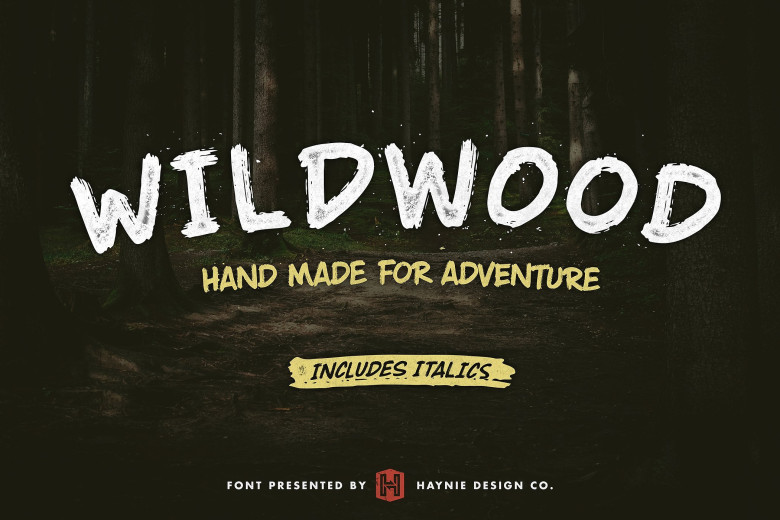
Wildwood Dry Brush Font
Introducing Wildwood Dry Brush Font! Wildwood Dry designed by Haynie Design Co., this is a premium font, are sold on creativemarket, but it was great, it is free today for download. Wildwood is an adventurous and expressive dry brush all-caps display font. Featuring lowercase alternates and an italicized variant, Wildwood is built to be versatile enough to cover everything from vintage themes, promotional pieces, quotes, and more. The alternate lowercase letters and included bonus swashes really give it that final handmade touch!